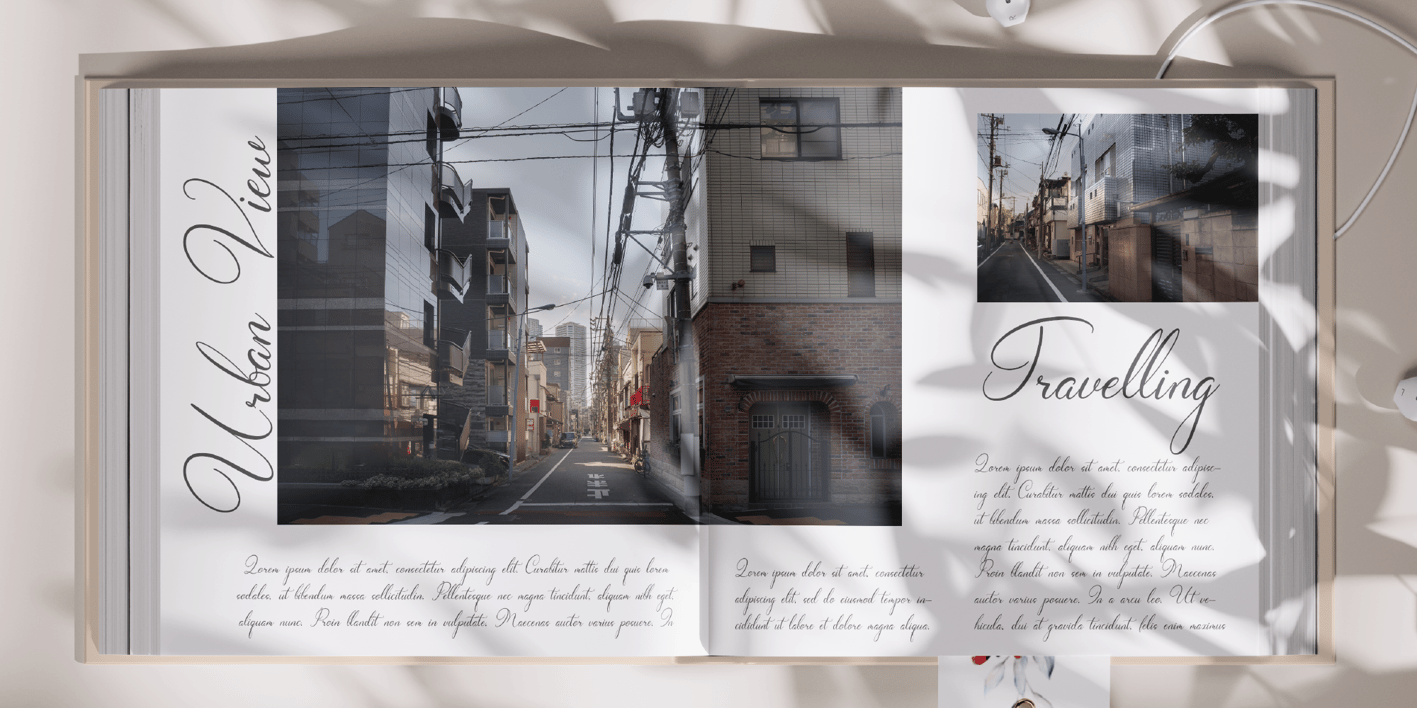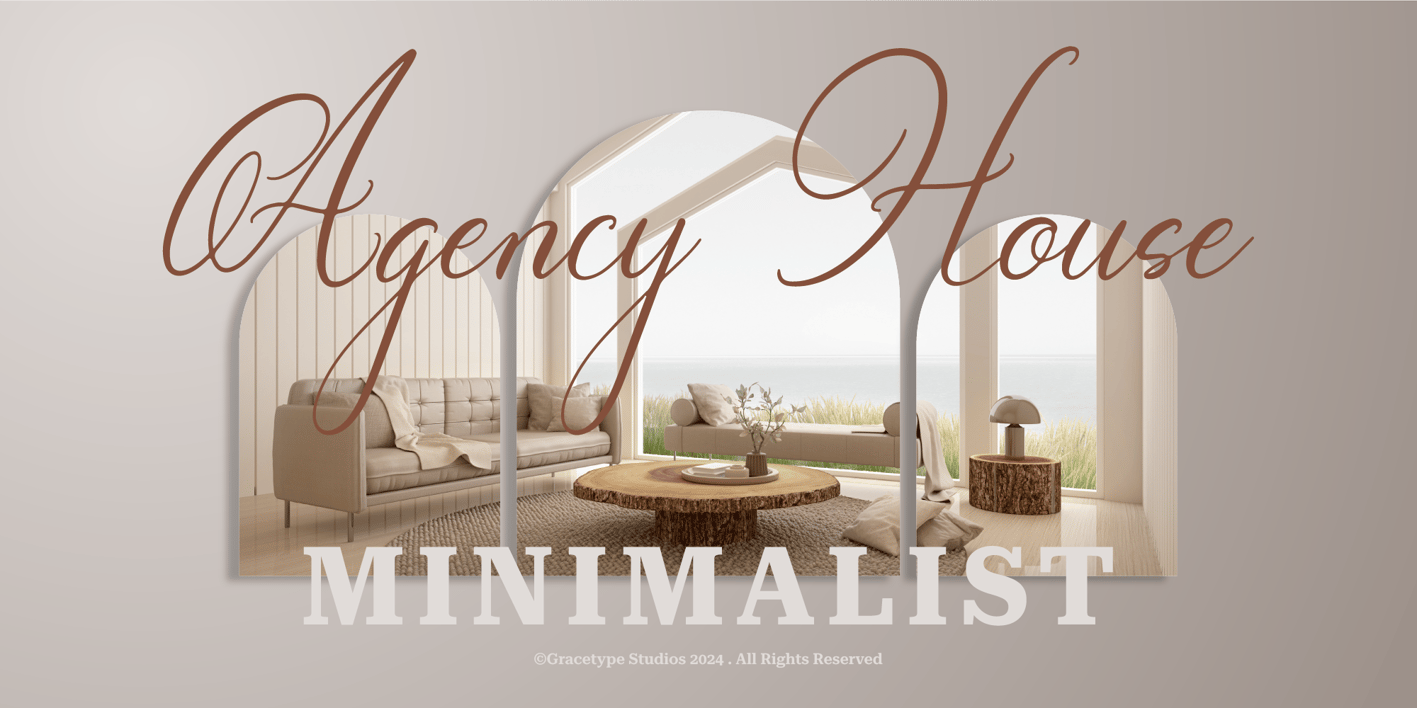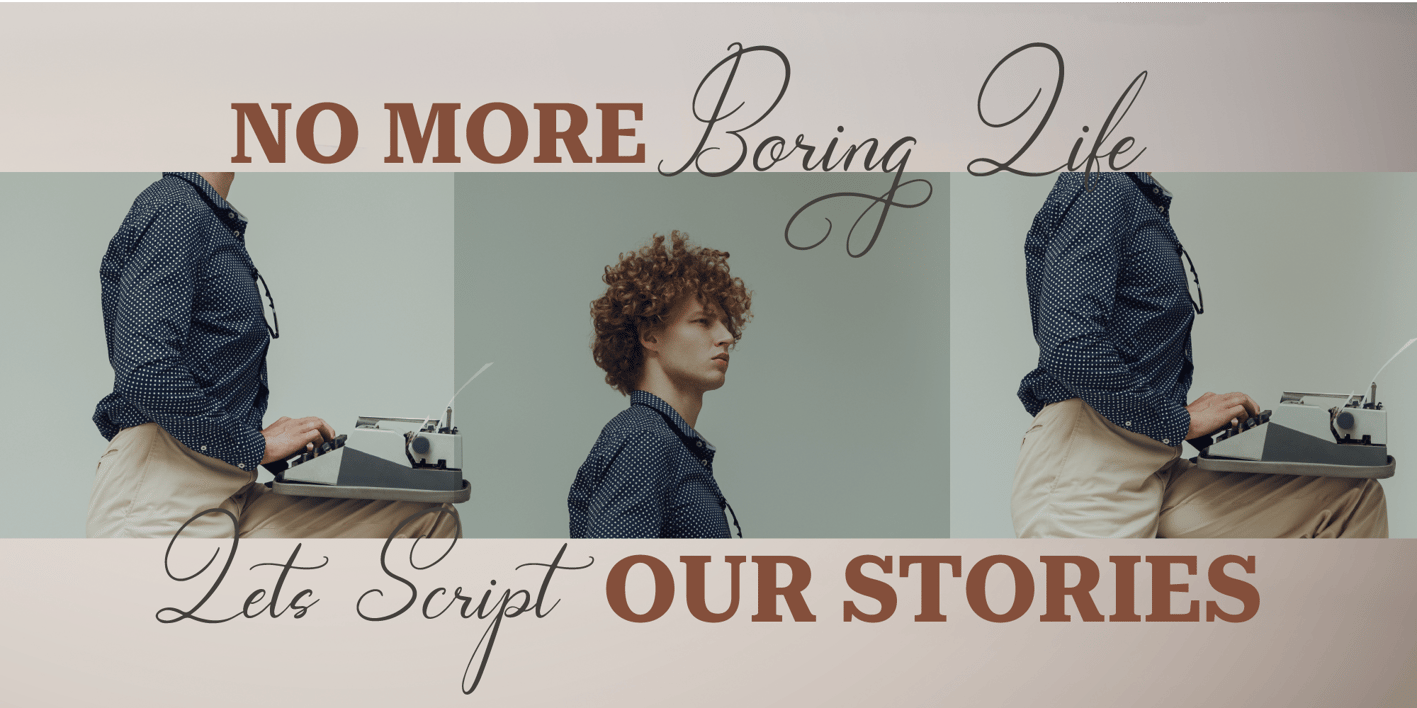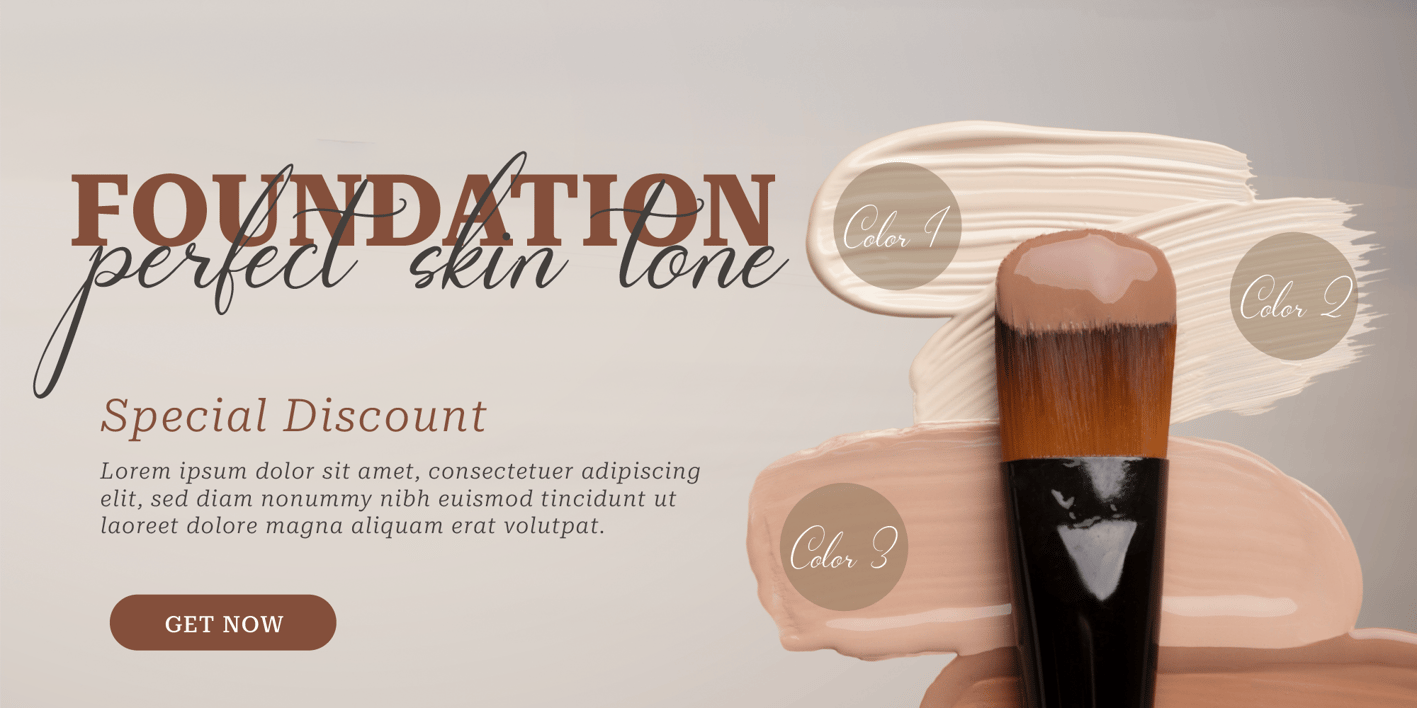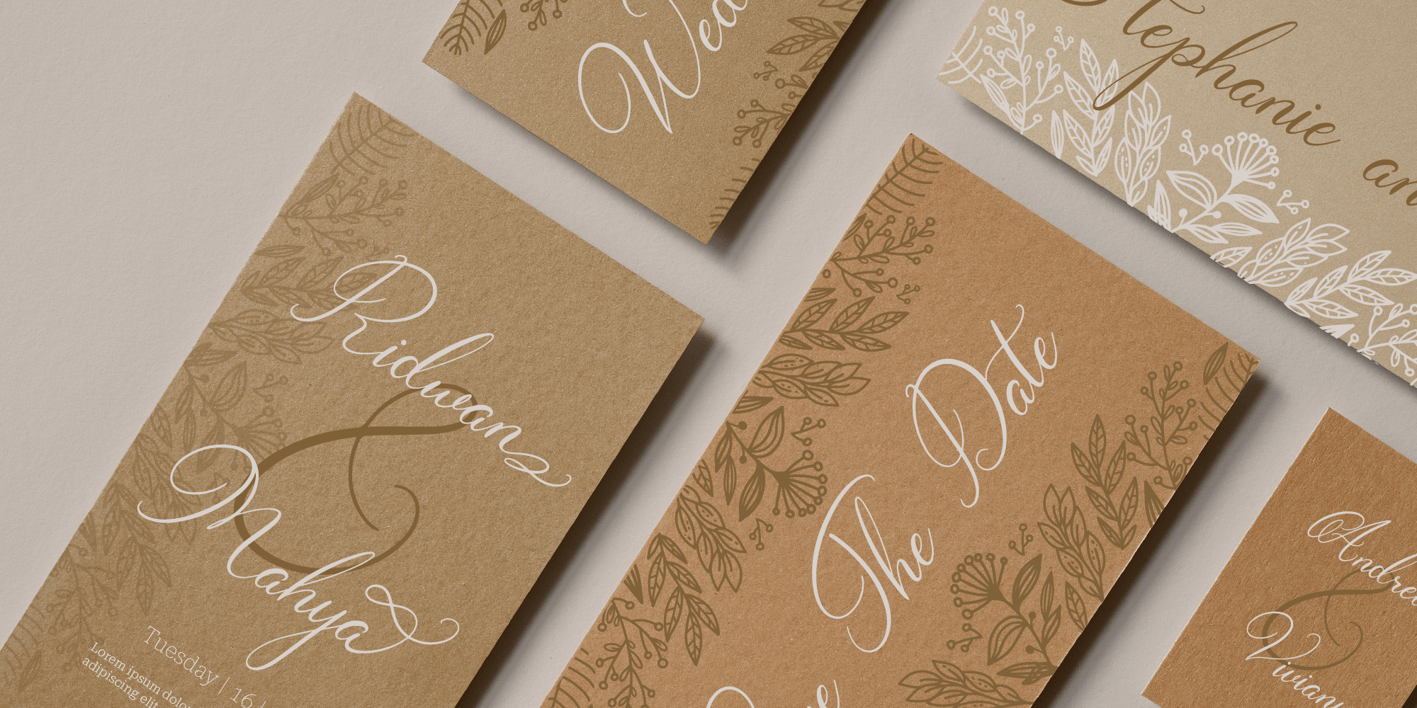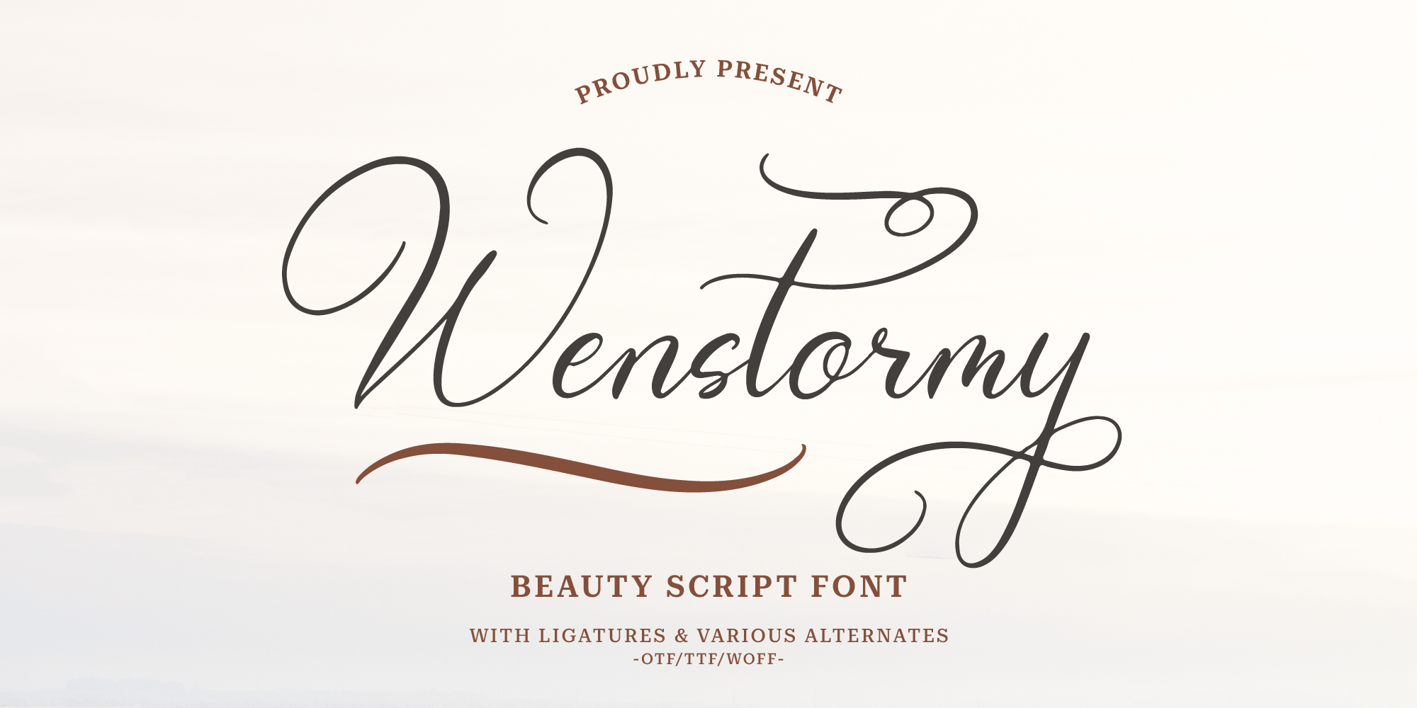
Wenstormy Font
Wenstormy | Calligraphy Script, from Gracetypestudio, suitable for any projects such as: logos, branding projects, homeware designs, product packaging, mugs, quotes, posters, shopping bags, t-shirts, book covers, name card, invitation cards, greeting cards, label, photography, watermark, special events, and all your other lovely projects that need a Calligraphy script taste.